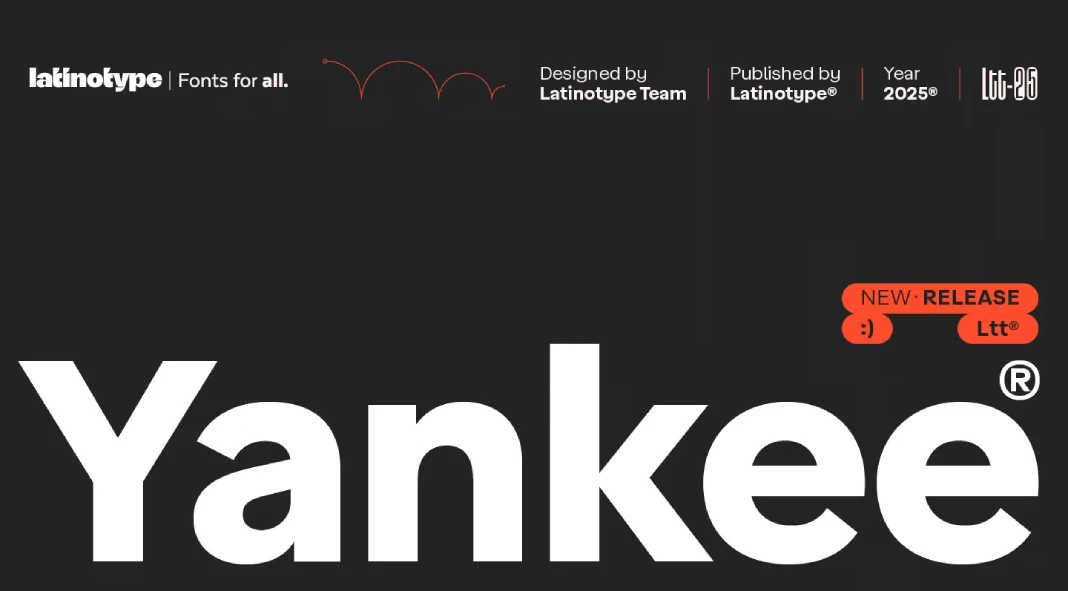
Yankee Font: A Modern Classic Typeface That’s Ready to Play Ball!
Ever wondered how fonts capture a vibe, a feeling, a whole culture? The Yankee font family by Latinotype does just that. It encapsulates the spirit of American tradition with a modern twist. But why should you care about a new font? Well, because this one is more than just a set of characters. It’s a versatile design tool that can elevate your projects, and it’s poised to become a modern classic. Do you want to know how? Keep reading!
Discovering the Charm of the Yankee Font Family
Imagine a font that feels as comfortable on a museum exhibit as it does on a vintage funk record cover. What does that look like? The Yankee font achieves this with its bold, clean lines and perfectly balanced proportions. Latinotype designed this font to bridge the gap between timelessness and modern flair.
The font paints vivid scenes: the bustling energy of New York hot dog stands, the electricity of game nights, and the simple elegance of modern art. Yankee captures that specific feeling.
A Font With Versatility
What makes Yankee so versatile? It comes in 9 weights, each with an italic version. This ensures impeccable readability and stunning visual impact. But it’s not just about looking good. This font is designed to work for a wide range of applications. Whether you’re creating a website, designing a logo, or crafting marketing materials, Yankee has you covered.
Key Features That Make Yankee Stand Out
So, what makes Yankee so special? Here’s a closer look at some of its defining characteristics:
Geometric Precision
You’ll notice its geometric shapes, which provide a clean and modern look. This makes the font feel contemporary without losing its classic appeal.
Carefully Crafted Details
The details are where Yankee truly shines. Every curve and line is thoughtfully designed, giving the font a polished and refined appearance.
Wide Range of Weights
With 9 different weights, from thin to black, Yankee offers incredible flexibility. This allows you to create visual hierarchy and emphasis in your designs. Each weight also comes with an italic version for even more versatility.
Yankee in Action: Real-World Applications
Where can you see Yankee making an impact? Here are just a few examples:
Branding and Logo Design
Its strong and versatile character makes it a great choice for creating memorable logos and brand identities. How would you make this font work with your personal brand?
Editorial Design
Thanks to its excellent readability, the Yankee font works well in magazines, newspapers, and books. Imagine reading your favorite novel with the Yankee font!
Web Design
Yankee’s clean lines and modern aesthetic make it ideal for website headers, body text, and navigation menus.
Advertising and Marketing
Yankee’s bold presence ensures that your message gets noticed. Think about eye-catching posters and engaging social media graphics.
Why the Yankee Font Is a Must-Have for Designers
In an era where authenticity clashes with fleeting trends, the Yankee font stands out. It offers designers a tool that is both timeless and modern. If you need a font that can capture the spirit of American heritage while remaining relevant in today’s design landscape, Yankee is it. The design can also capture that essence.
Latinotype’s Yankee is more than just a font, it’s a design asset that brings character, versatility, and a touch of American flair to any project. It has 9 styles, geometric perfection, and careful detailing. From branding to editorial design, Yankee is ready to elevate your work and make a lasting impression. If you’re looking for a Yankee font that will stand the test of time, look no further than this modern classic from Latinotype. So, are you ready to add Yankee to your design toolkit?